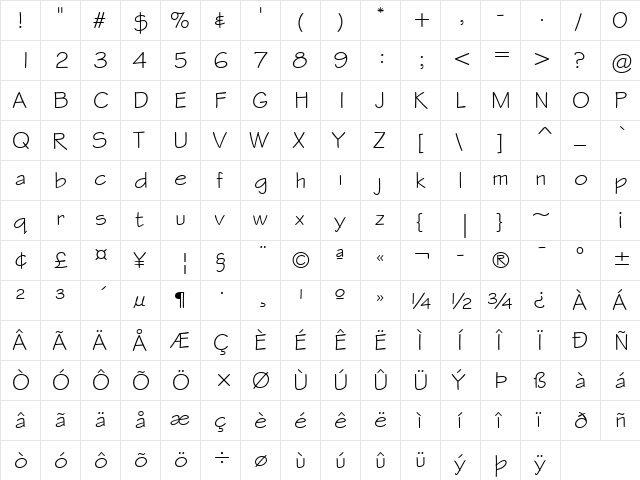
Stylus BT Roman
Design Context for Stylus BT Typeface
Stylus BT offers clean, dependable letterforms without strong stylistic allegiance, making it a practical choice for designers who need flexibility.
Pro Tip: Pair Stylus BT with a font of contrasting weight or personality to build a more expressive typographic hierarchy.